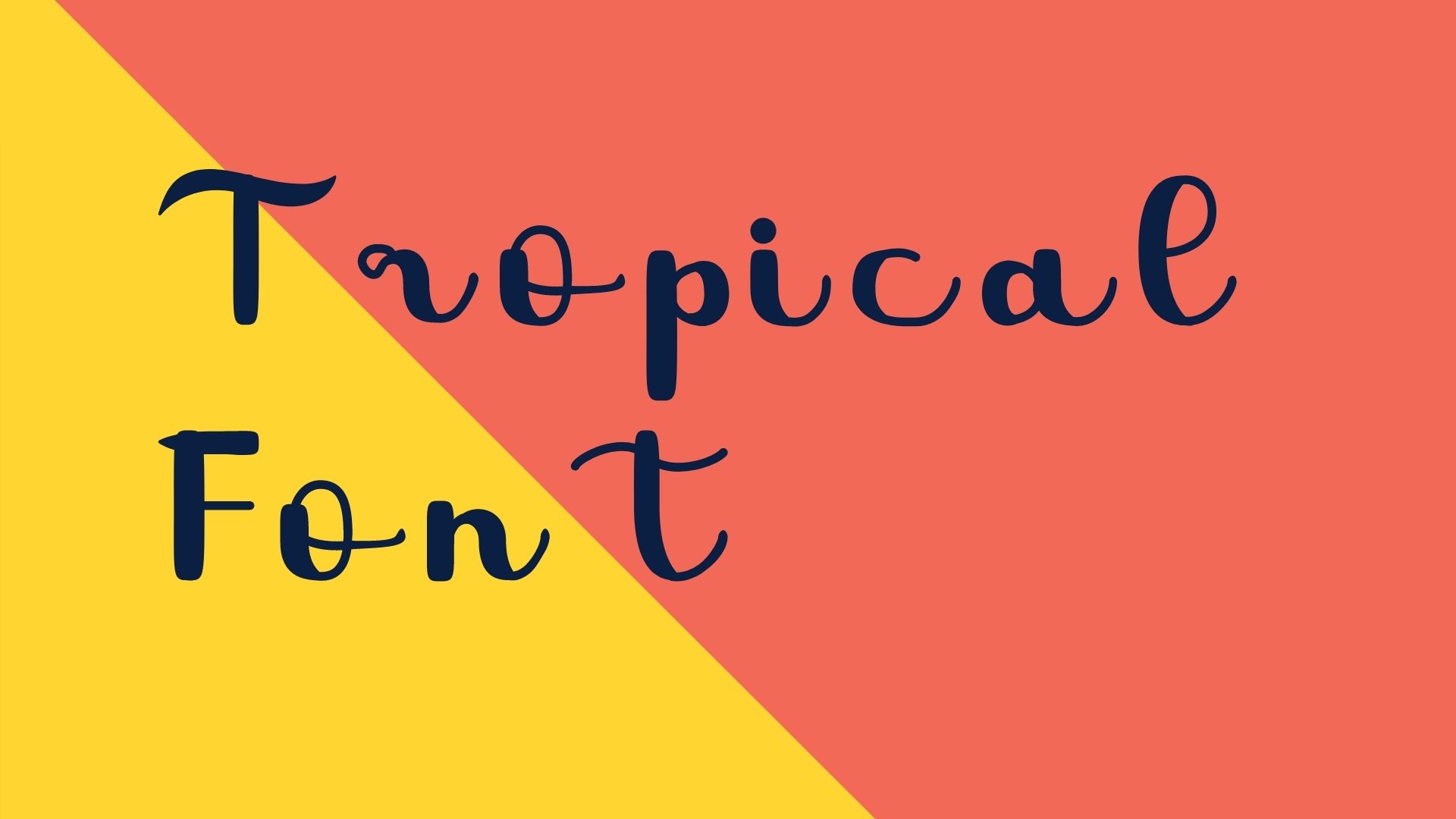
Tropical Font Family, characterized by its brush script typeface, features a calligraphic flair that looks stunning in both display and on-screen designs. Additionally, it’s included in the Google Fonts library.
This font comes with great hand-lettered typographic characters that provide great styling when paired with scriptina font and this will be useful for designing logos, visiting cards, and much more, and this is available in different formats.
Tropical Font
TypeBrush